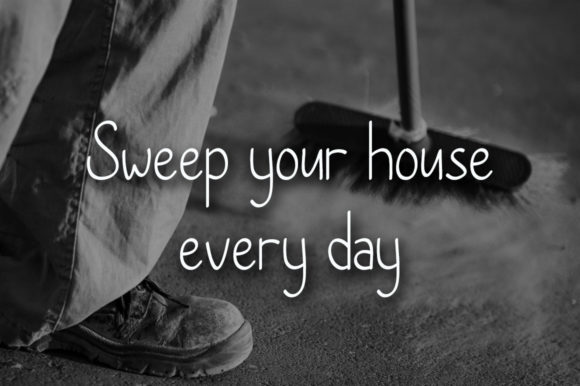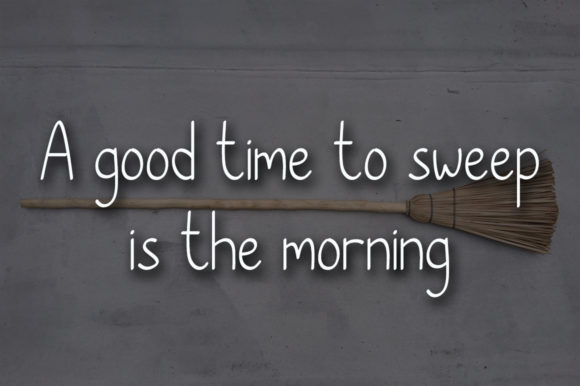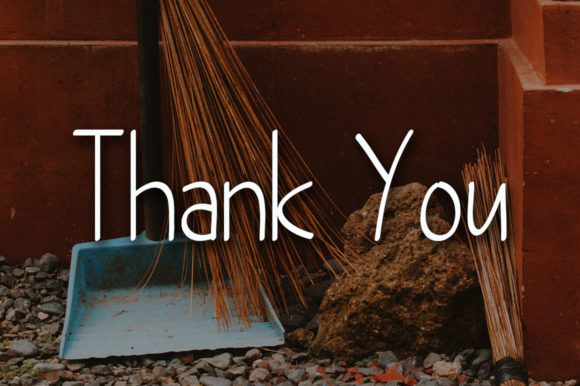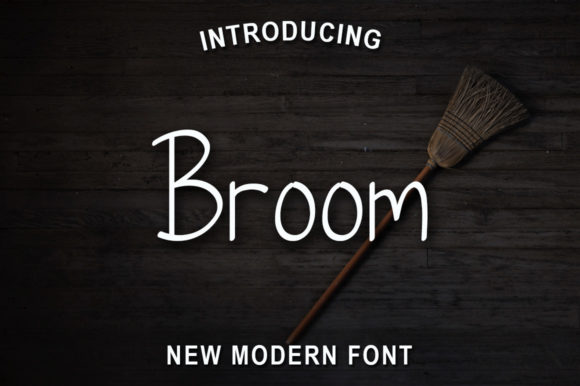
Broom Font: A Simple and Minimalistic Handwritten Typeface
Broom is a beautiful, simple, and minimalistic handwritten font that has been gaining popularity among designers and crafters. Featuring a clean style and a sleek appearance, this typeface is perfect for any project that requires a handwritten touch. In this article, we’ll dive into the world of Broom Font, exploring its features, uses, and benefits.
What is Broom Font?
Broom Font is a modern, handwritten typeface that boasts a clean and minimalist design. Its simplicity makes it an excellent choice for a wide range of projects, from branding and advertising to packaging and digital media. The font’s sleek appearance and smooth lines give it a sophisticated look that’s both elegant and approachable.
Key Features of Broom Font
- Clean and Minimalistic Design: Broom Font features a simple and uncluttered design that makes it easy to read and understand.
- Handwritten Touch: The font’s handwritten style gives it a personal and organic feel that’s perfect for projects that require a human touch.
- Sleek Appearance: Broom Font’s smooth lines and sleek appearance make it an excellent choice for modern designs.
- Versatile: The font is suitable for a wide range of projects, from digital media to print materials.
Uses of Broom Font
Broom Font is a versatile typeface that can be used in various projects, including:
- Branding and Advertising: The font’s clean and modern design makes it perfect for logos, taglines, and advertising campaigns.
- Digital Media: Broom Font is suitable for digital media, including social media graphics, blog posts, and website designs.
- Packaging: The font’s sleek appearance makes it an excellent choice for packaging designs, including labels, bottles, and boxes.
- Crafting and DIY Projects: Broom Font is perfect for crafters and DIY enthusiasts who want to add a personal touch to their projects.
Benefits of Using Broom Font
Using Broom Font in your projects offers several benefits, including:
- Unique and Creative Look: The font’s handwritten style gives your projects a unique and creative look that sets them apart from others.
- Easily Readable: Broom Font’s clean design makes it easy to read, even at small sizes.
- Time-Saving: The font’s simplicity saves you time and effort, as you don’t need to spend hours designing a custom typeface.
- Cost-Effective: Broom Font is an affordable solution for designers and crafters who want a high-quality, handwritten typeface without breaking the bank.
Tips for Using Broom Font
To get the most out of Broom Font, follow these tips:
- Use it with Other Fonts: Combine Broom Font with other fonts to create a unique and visually appealing design.
- Experiment with Colors: Try different colors and textures to add depth and interest to your design.
- Keep it Simple: Don’t overcomplicate your design – keep it simple and clean to let Broom Font shine.
Broom Font is a beautiful, simple, and minimalistic handwritten typeface that’s perfect for designers and crafters. Its clean design, sleek appearance, and versatility make it an excellent choice for a wide range of projects. With its unique and creative look, ease of readability, and cost-effectiveness, Broom Font is a great addition to any design toolkit. So why not give it a try and see how it can elevate your designs?